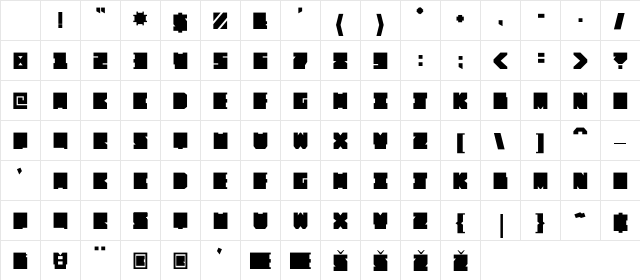
Complete Blockhead Regular glyph index. Displaying only characters natively supported by Blockhead Regular font.
Blockhead is a composed and adaptable typeface that performs quietly and consistently across a wide range of design contexts.